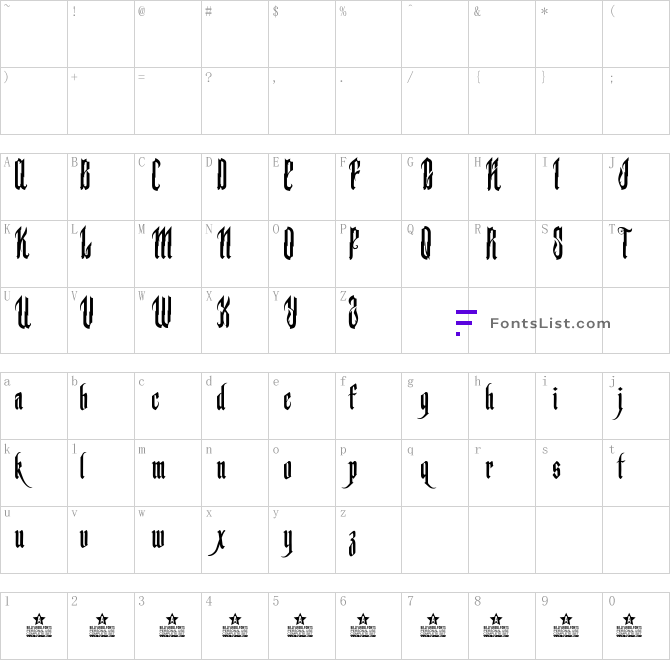
Backstab-Personal-Use-Regular.ttf is a very beautiful artistic font, Backstab-Personal-Use-Regular.ttf is widely used in the design and printing of various books and pictures,Backstab-Personal-Use-Regular.ttf has a strong visual impact,Backstab-Personal-Use-Regular.ttf is a commonly used font in newspapers, magazines and books, and is used in posters, e-commerce Poster design, store design, logo design, font design and other fields.Backstab-Personal-Use-Regular.